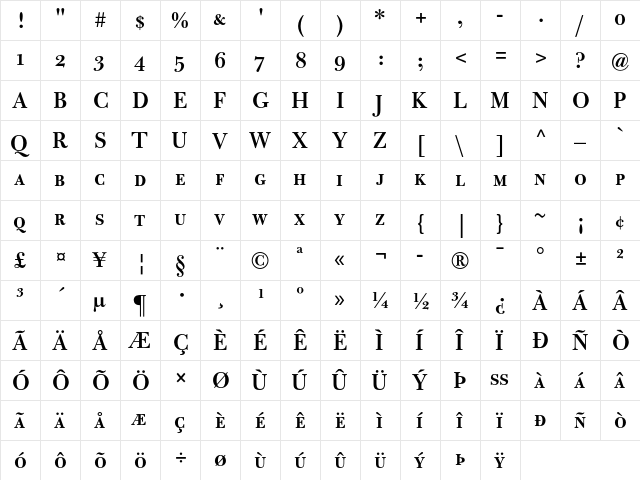
Bulmer MT Semibold SC
Design Context for Bulmer MT Typeface
Bulmer MT offers clean, dependable letterforms without strong stylistic allegiance, making it a practical choice for designers who need flexibility. The heavy weight commands attention and anchors typographic hierarchies.